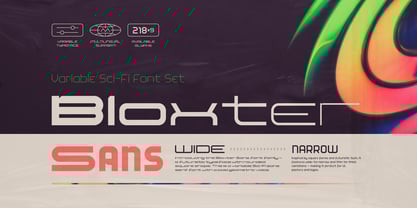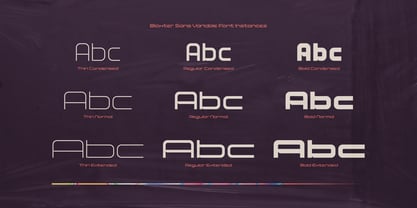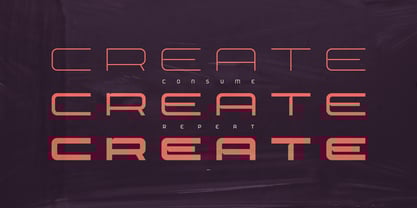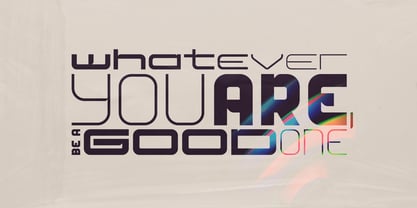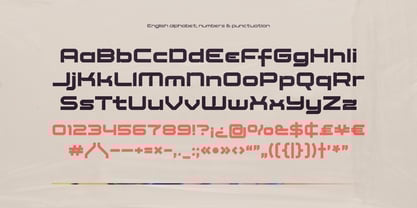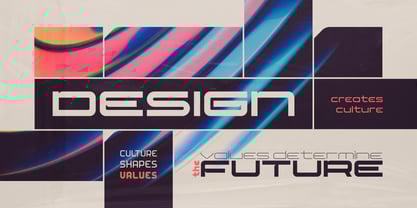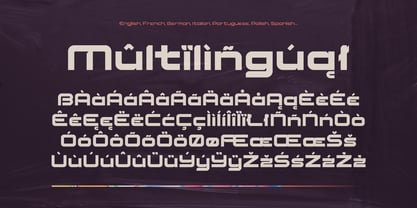
Bloxter Sans
by Gleb Guralnyk
The Bloxter Sans Font Family was designed by Gleb Guralnyk and published by Gleb Guralnyk. Bloxter Sans contains 10 styles and family package options. More about this family
Introducing the Bloxter Sans font family — a futuristic typeface with rounded square shape. This is a variable sci-fi sans serif font with a bold geometric voice. Inspired by square forms and futuristic tech, it features wide-to-narrow and thin-to-thick variations — making it perfect for UI, posters and logos.
This set includes nine different weights and width versions and all-in-one variable font. Bloxter Sans offers multilingual support — check out the screenshot to see the full character set!